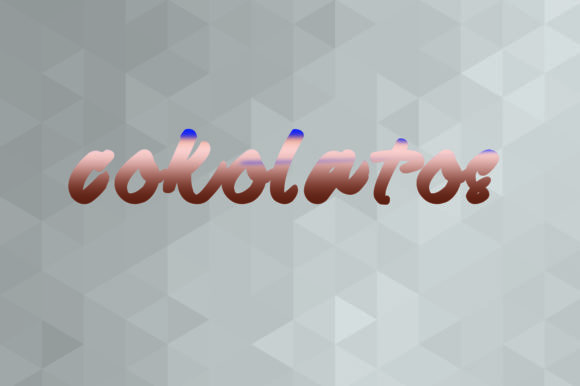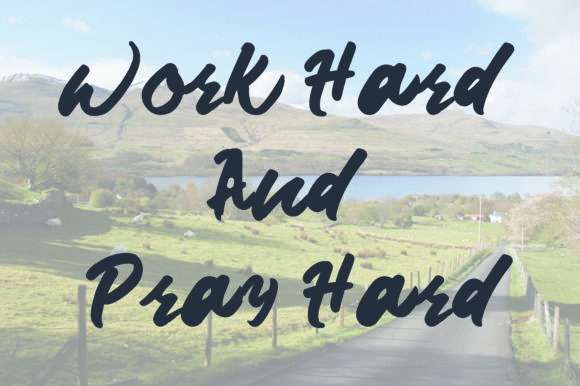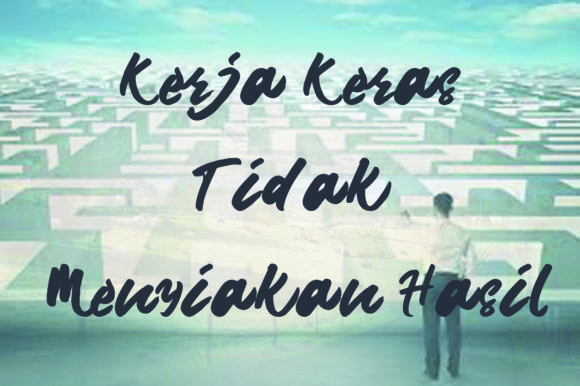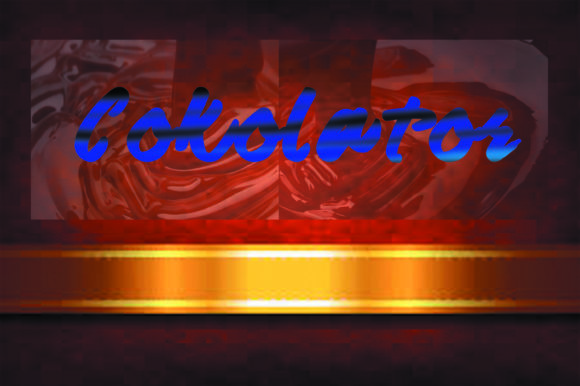
Cokolatos Font: Adding a Fun Feel to Your Designs
The Cokolatos font is a bold handwritten font that has taken the design world by storm. With its fresh and modern style, it’s the perfect addition to any design project that requires a fun and playful touch. In this article, we’ll dive into the world of Cokolatos font, exploring its features, uses, and benefits for designers and crafters.
What is Cokolatos Font?
The Cokolatos font is a bold handwritten font designed to add a personal touch to your designs. Its unique and modern style sets it apart from other fonts, making it perfect for projects that require a fun and youthful feel. Whether you’re working on a logo, branding, or marketing materials, Cokolatos font is sure to make your design stand out.
Features of Cokolatos Font
The Cokolatos font boasts several features that make it a favorite among designers and crafters. Some of its notable features include:
- Bold and Handwritten Style: The Cokolatos font has a bold and handwritten style that adds a personal touch to your designs.
- Fresh and Modern Look: Its fresh and modern style makes it perfect for designs that require a youthful and vibrant feel.
- High-Quality Letters: The font features high-quality letters that are clear and legible, even at small sizes.
- Multilingual Support: The Cokolatos font supports multiple languages, making it a great choice for global design projects.
Uses of Cokolatos Font
The Cokolatos font is versatile and can be used in a variety of design projects, including:
- Logo Design: The Cokolatos font is perfect for logo design, especially for brands that want to convey a fun and youthful image.
- Branding and Marketing: Use the Cokolatos font to create eye-catching marketing materials, such as brochures, flyers, and posters.
- Social Media Graphics: Add a fun touch to your social media graphics, such as Instagram posts and Facebook covers, with the Cokolatos font.
- Crafting and DIY Projects: The Cokolatos font is also perfect for crafters and DIY enthusiasts who want to add a personal touch to their projects, such as handmade cards and scrapbooking.
Benefits of Using Cokolatos Font
The Cokolatos font offers several benefits to designers and crafters, including:
- Unique and Creative: The Cokolatos font adds a unique and creative touch to your designs, setting them apart from others.
- Easy to Read: The font is clear and legible, making it easy to read even at small sizes.
- Time-Saving: With the Cokolatos font, you can create professional-looking designs in no time, saving you time and effort.
Tips for Using Cokolatos Font
Here are some tips for using the Cokolatos font effectively:
- Pair it with Other Fonts: Experiment with pairing the Cokolatos font with other fonts to create a unique and visually appealing design.
- Use it in Moderation: While the Cokolatos font is bold and eye-catching, use it in moderation to avoid overwhelming your design.
- Experiment with Colors: The Cokolatos font looks great in a variety of colors, so don’t be afraid to experiment and find the perfect color scheme for your design.
The Cokolatos font is a bold and modern handwritten font that’s perfect for designers and crafters who want to add a fun and playful touch to their designs. With its fresh and youthful style, high-quality letters, and multilingual support, it’s a versatile font that can be used in a variety of design projects. Whether you’re working on a logo, branding, or marketing materials, the Cokolatos font is sure to make your design stand out.